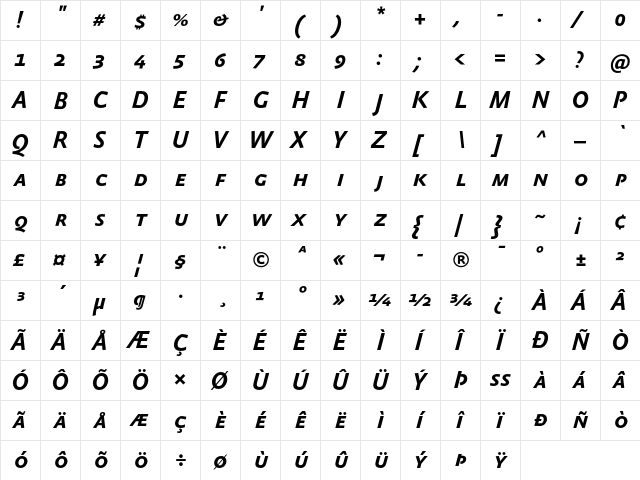
AbsaraSansTF-BoldItalicSC Regular Font Preview
Design Context for AbsaraSansTF-BoldItalicSC Typeface
AbsaraSansTF-BoldItalicSC offers clean, dependable letterforms without strong stylistic allegiance, making it a practical choice for designers who need flexibility. The dynamic lean of this cut emphasises speed and emphasis in any layout. The heavy weight commands attention and anchors typographic hierarchies.
Pro Tip: Try AbsaraSansTF-BoldItalicSC for annotation and caption copy alongside an upright companion — the contrast in angle creates a dynamic but ordered typographic system.